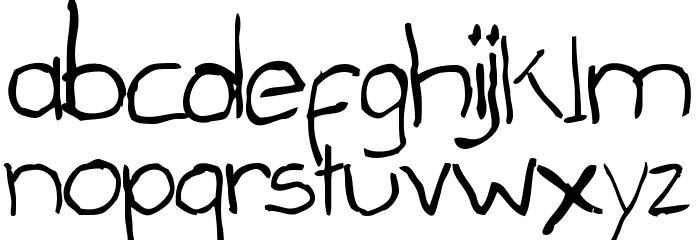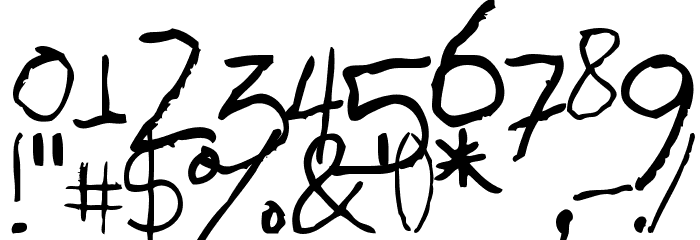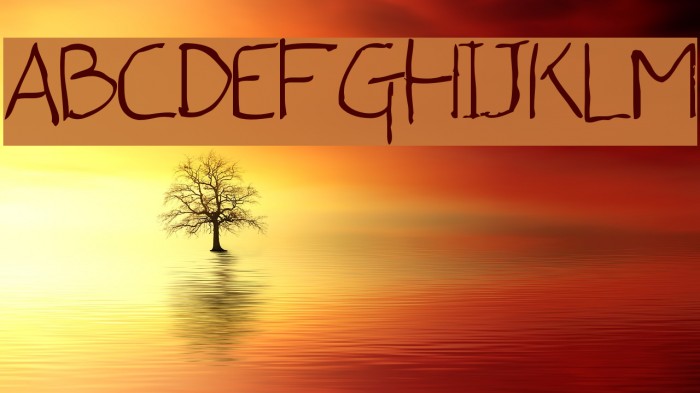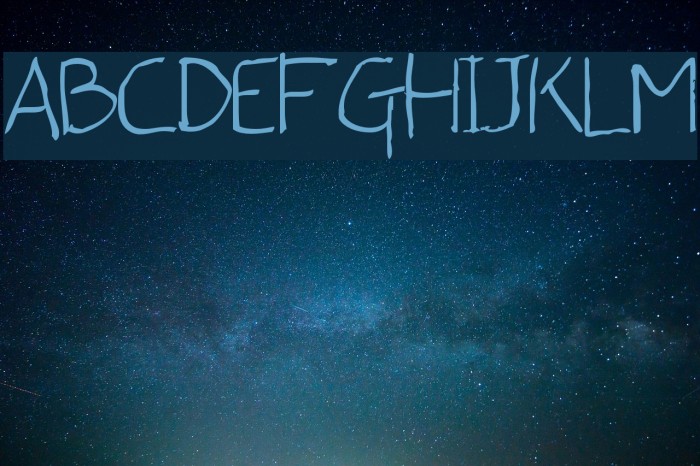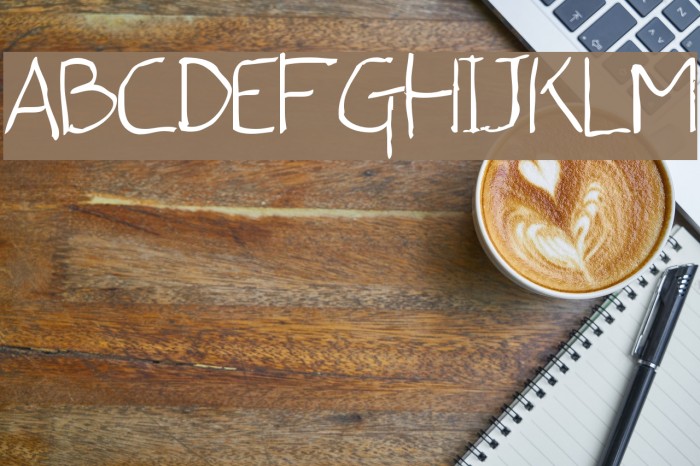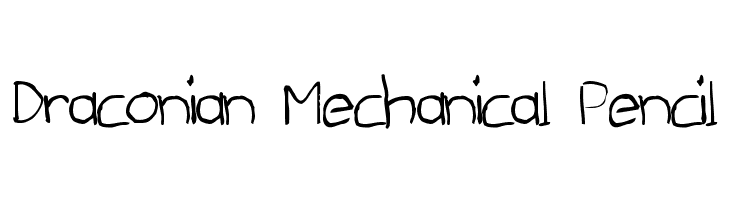
Draconian Mechanical Pencil Font
This font exhibits a raw, hand-drawn aesthetic that mimics the look of ink or pencil sketches. The characters are irregular and organic, with varying stroke thicknesses that give it a dynamic and energetic feel. The uppercase letters are tall and narrow, while the lowercase letters maintain a consistent height, adding to the font's quirky charm. The numbers and special characters continue this theme, with each character appearing unique and slightly unpredictable. This font's style is reminiscent of graffiti or street art, making it ideal for projects that require a bold, artistic touch.
A hand-drawn, sketch-like font with irregular strokes and a dynamic, artistic feel.
- Proposed Projects: Ideal for artistic projects, graffiti-inspired designs, album covers, posters, and creative branding.
- Overall Style: Artistic
- Use Case: Logos, Posters, Creative Branding